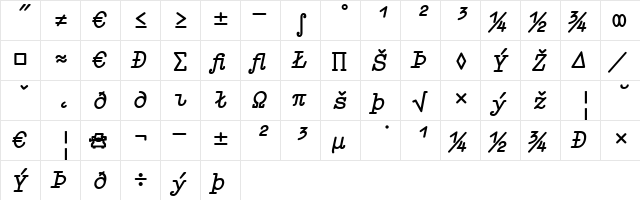
Elementa Expert ItalicBold
Design Context for Elementa Expert Typeface
Elementa Expert offers clean, dependable letterforms without strong stylistic allegiance, making it a practical choice for designers who need flexibility. The slanted form adds forward momentum and visual energy. The heavy weight commands attention and anchors typographic hierarchies.